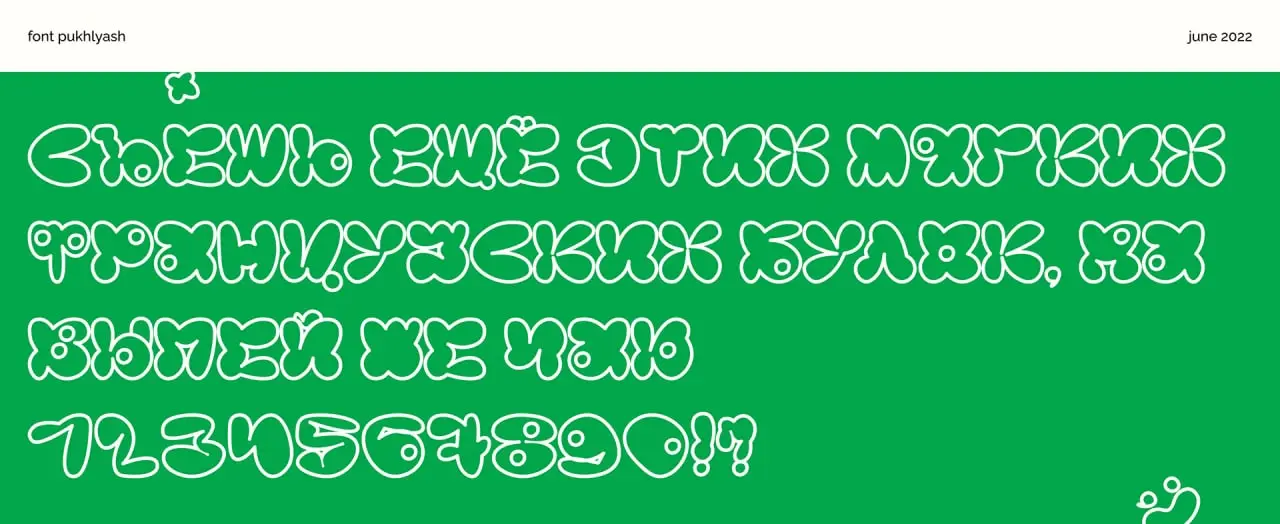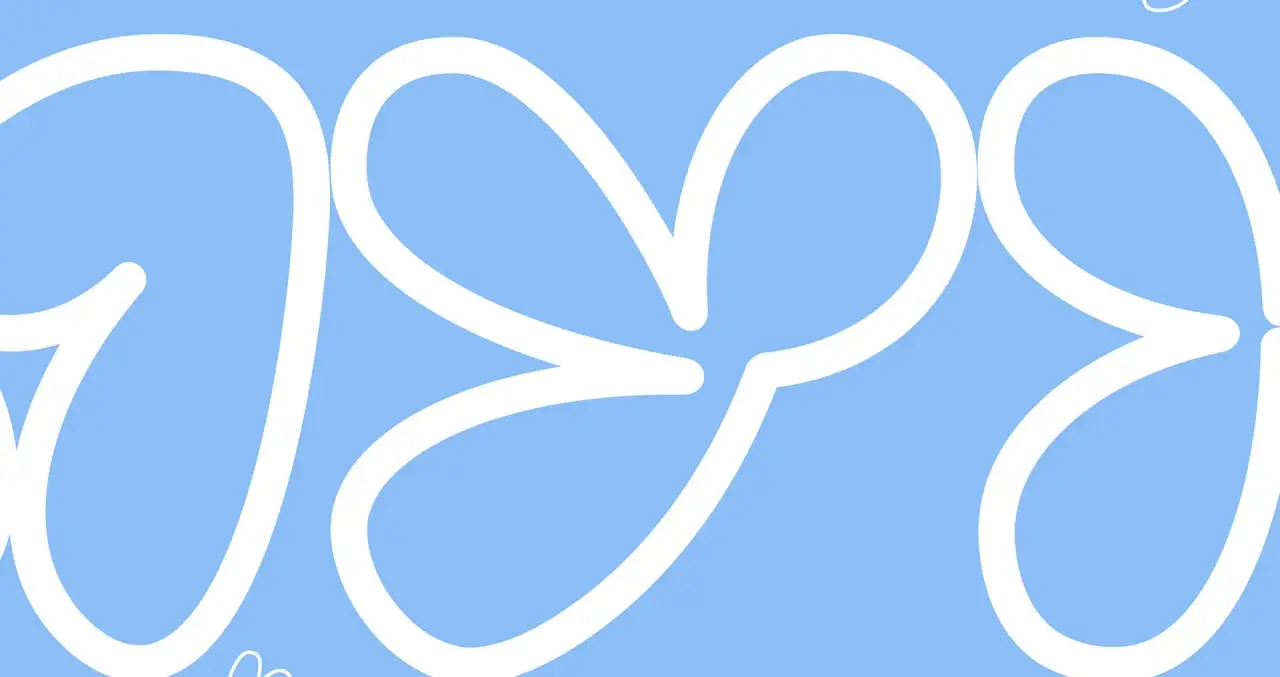
Pukhlyash Free Cyrillic Font By Anutavsesuper
Pukhlyash is a unique free Cyrillic font designed by Anutavsesuper, perfect for various design projects. With its playful and rounded letterforms, this font adds a touch of personality to your work.
Pukhlyash comes in multiple weights, ensuring versatility for different applications. It is available in OTF and TTF formats, making it easy to use across various platforms.
Ideal for branding, logos, posters, and web design, Pukhlyash can help you create eye-catching visuals. Consider pairing it with simpler fonts to maintain readability while showcasing its unique characteristics.